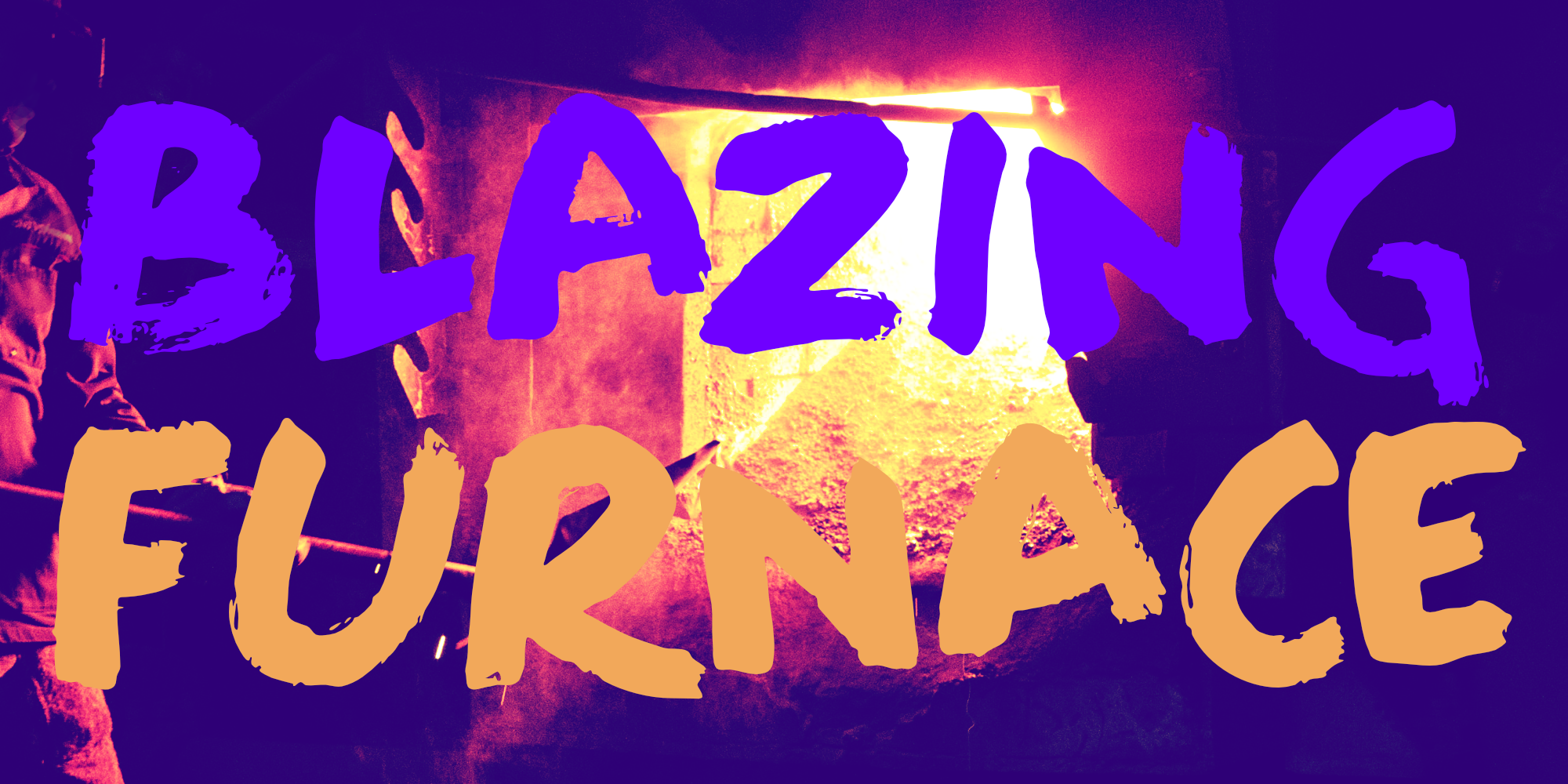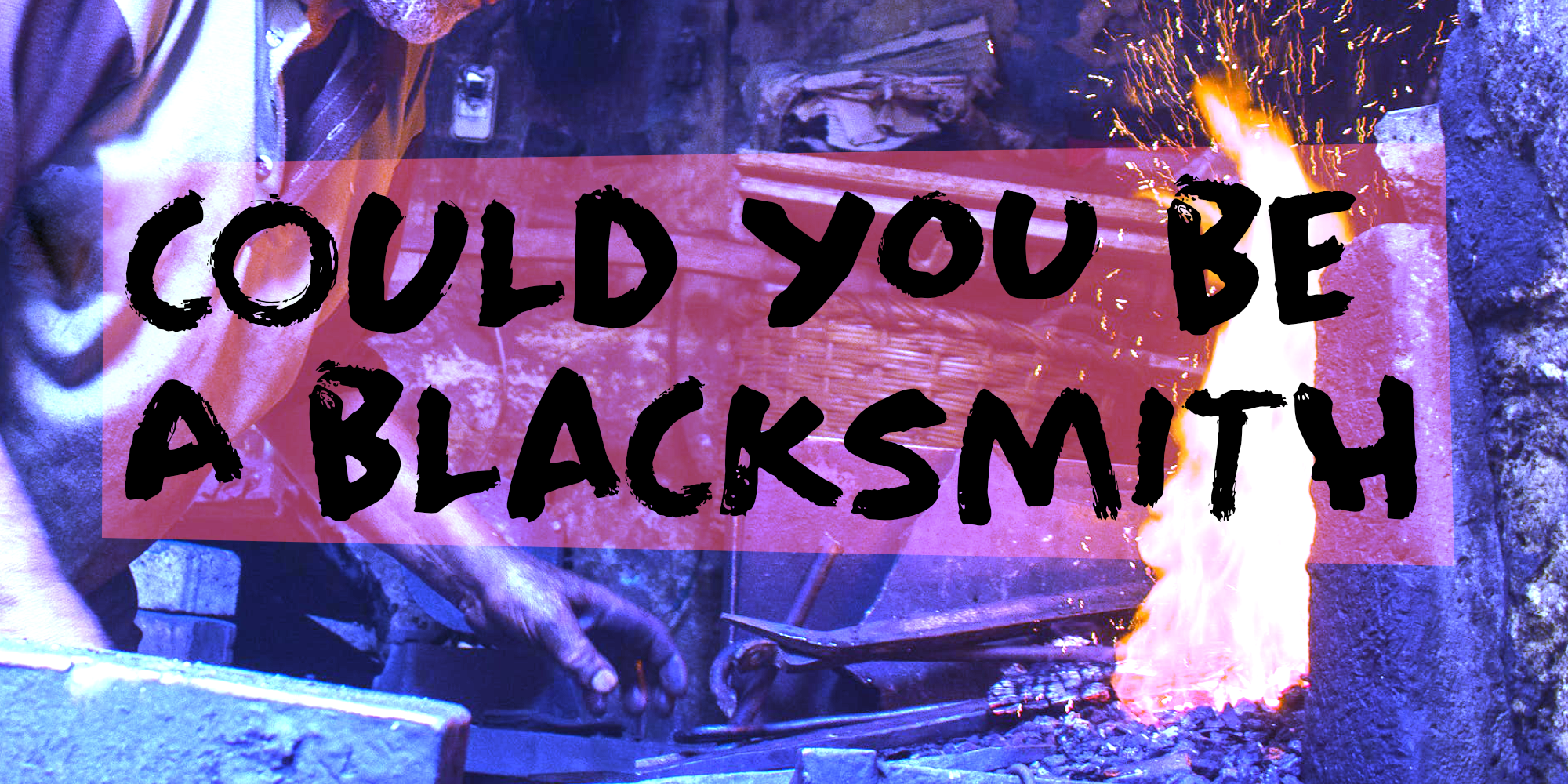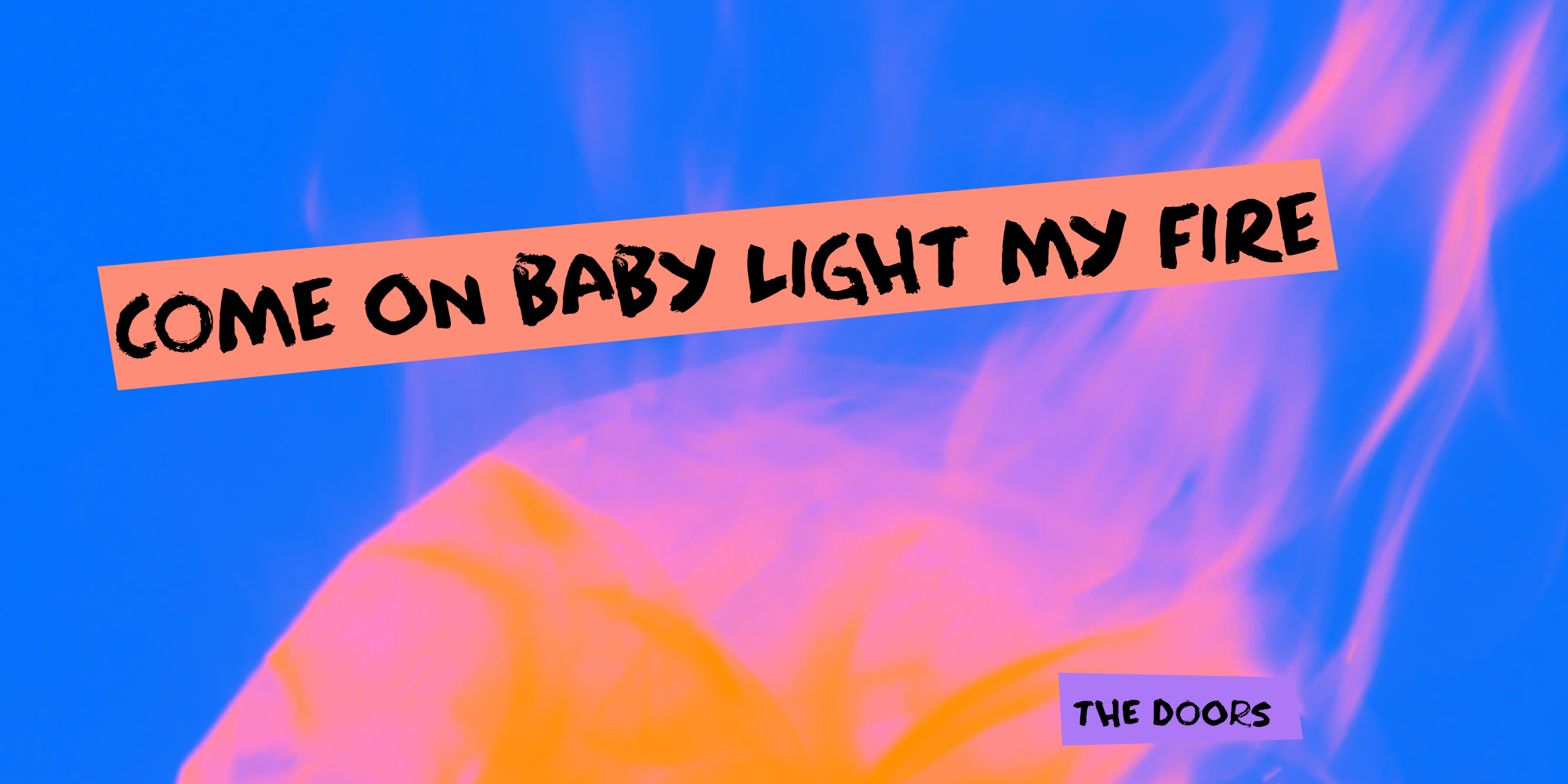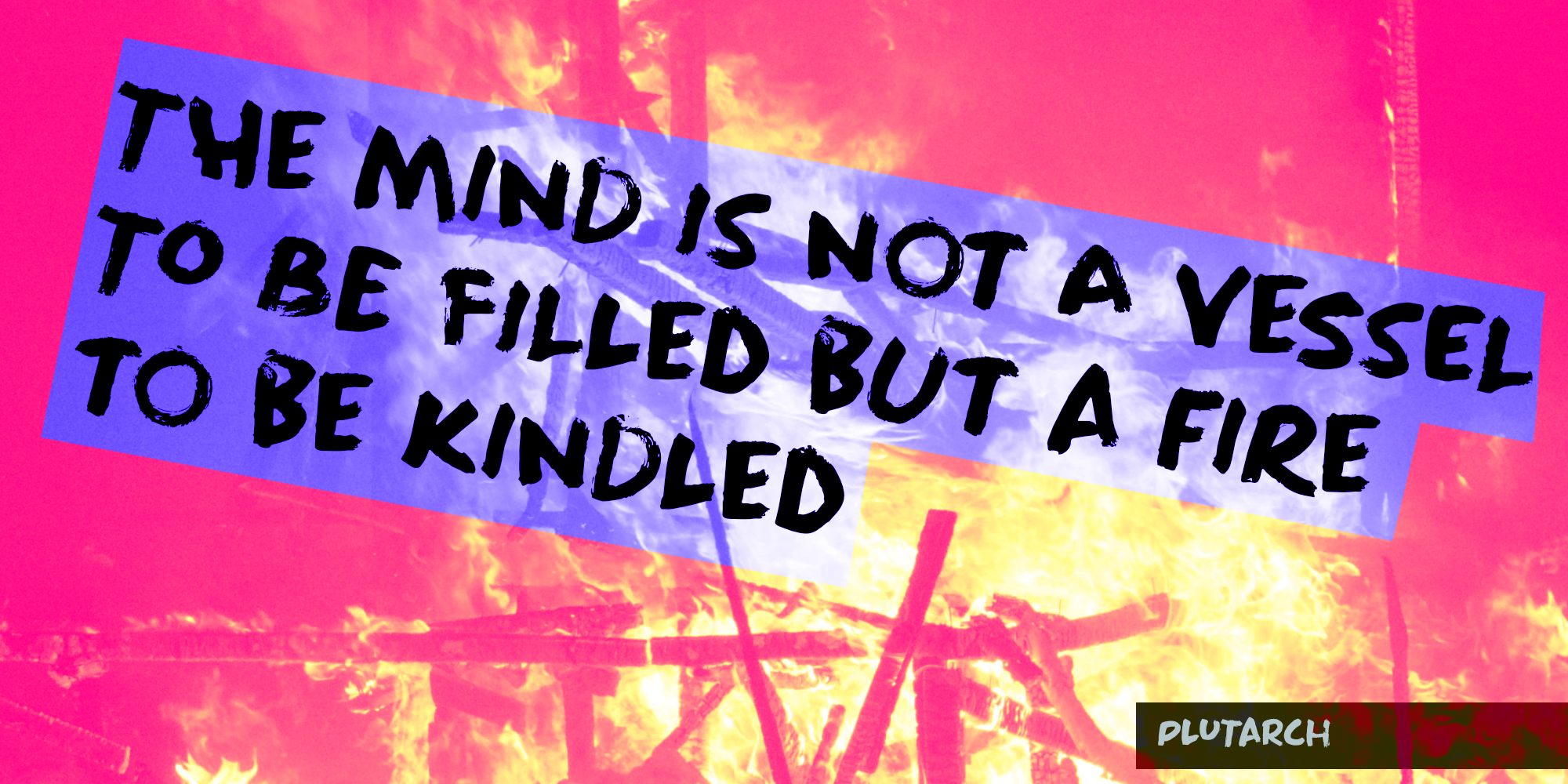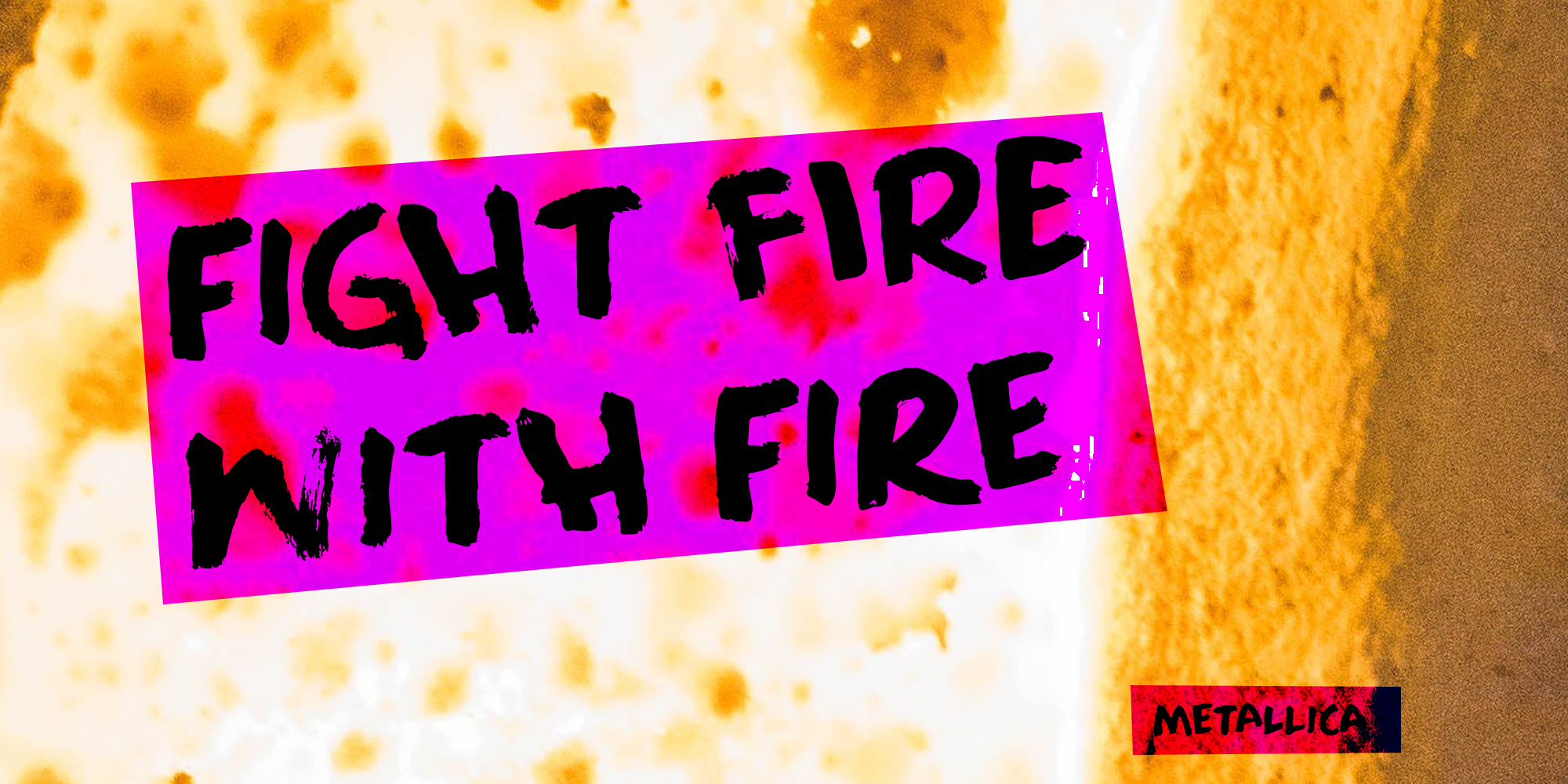
Blazing Furnace (2 fonts)
Blazing Furnace was made with ink and a brush. It is a bit messy and rough, but it comes with multilingual support and a nice set of alternates for the lower case letters.